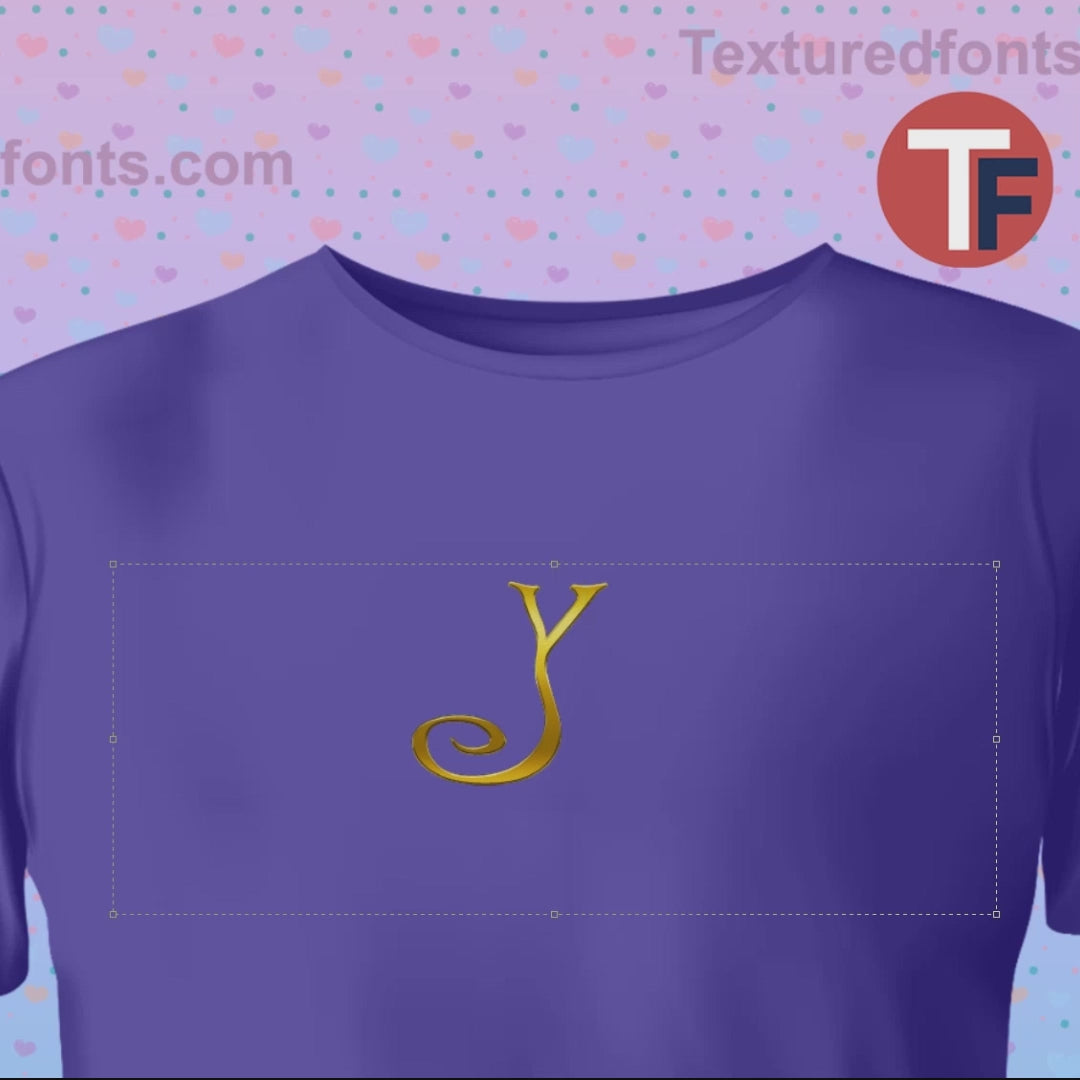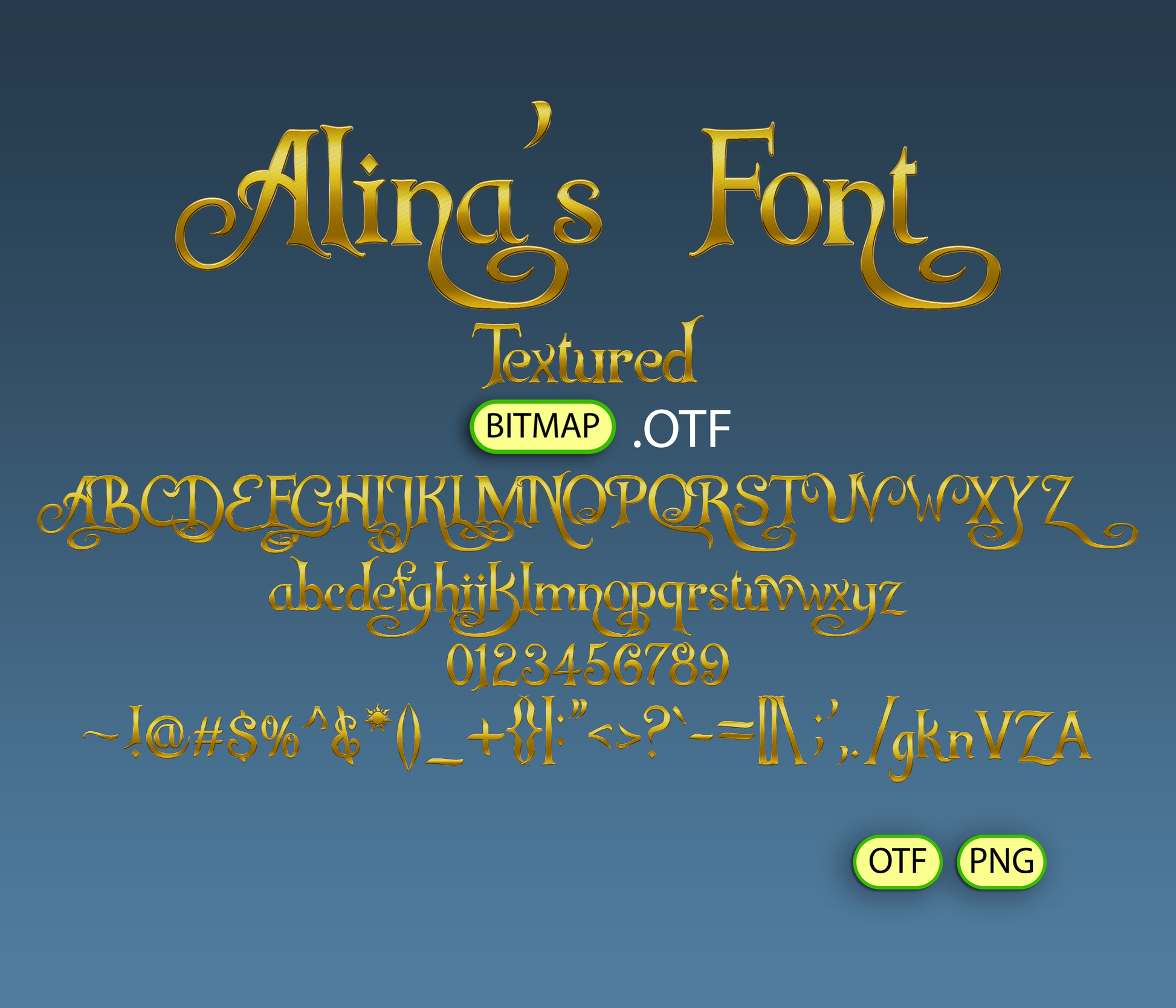
Enchanted Tresses Font Textured
Unravel Enchantment with the Enchanted Tresses Font
Step into a world of enchantment and whimsical adventure with our Enchanted Tresses font, designed to capture the fairy tale charm of a beloved animated story. Perfect for fans of magical tales and their adventurous heroines, this font embodies the warmth and playful spirit seen throughout their journeys. Whether you're designing party invitations, creating delightful children’s books, or enhancing your digital content, our Enchanted Tresses font ensures your projects sparkle with fairy tale magic.
Reflecting the art style of whimsical fairy tales, this font features flowing, curved lines and elegant embellishments that mimic picturesque landscapes and detailed animation. The font includes a comprehensive character set—uppercase, lowercase, numbers, and special symbols—making it versatile for a variety of creative endeavors:
Enchanted Tresses Font Generator
Our Enchanted Tresses font is not just a tool for typography; it’s an invitation to weave the whimsy and adventure of magical fairy tales into your creative works. With its elegant design and broad applicability, this font allows you to narrate stories and create designs that are as captivating as they are beautiful. Let every letter you type dance with the joy and charm of fairy tales, bringing fairy tale dreams to life in your projects.